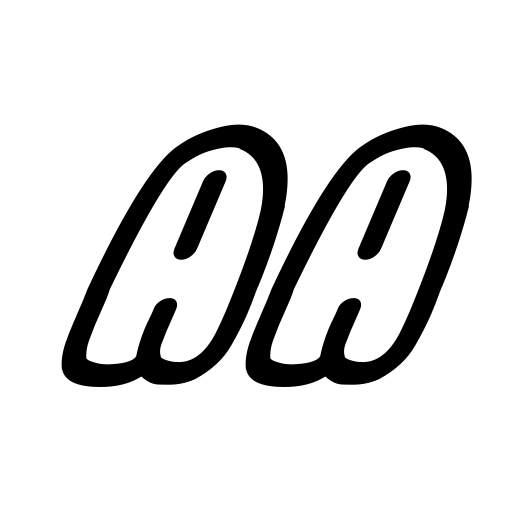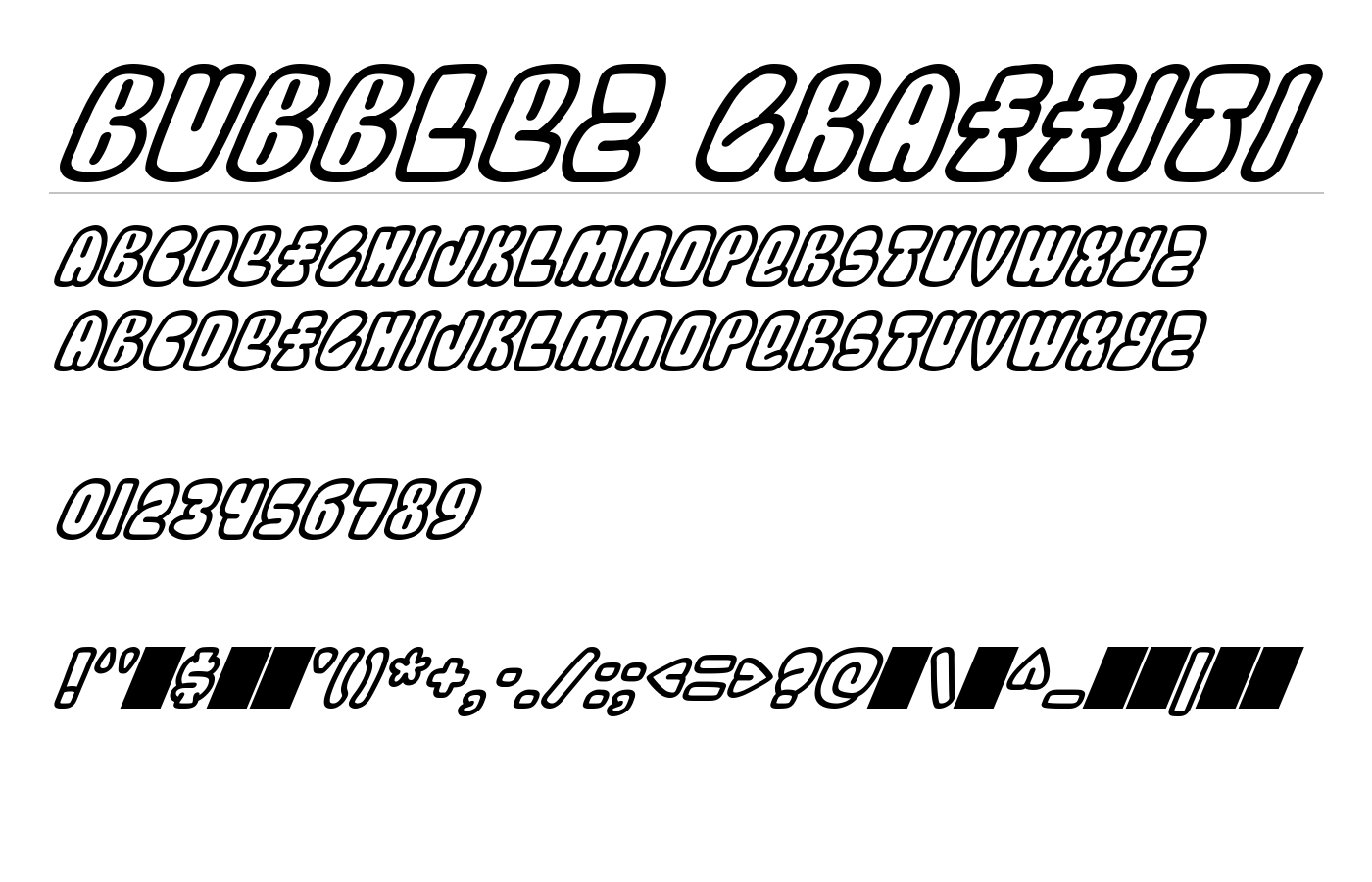
Bubblez Graffiti Font is a fun, bold display typeface characterized by its thick, rounded forms and playful, slightly italicized style, suggestive of urban street art and bubble lettering. Its smooth, inflated shapes give it a youthful and energetic vibe, perfect for eye-catching logos, posters, and packaging that aim to convey creativity and a casual, streetwise personality. This font works best in headlines and branding where a lively, modern, and approachable look is desired.
Bubblez Graffiti Font
About Bubblez Graffiti Font